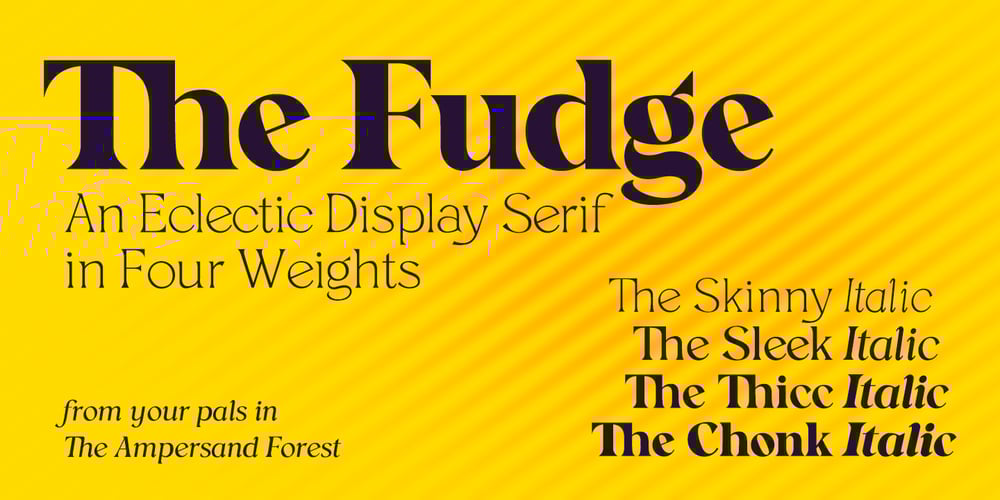
The Fudge Font Family was designed by DC Scarpelli and published by The Ampersand Forest. The Fudge contains 7 styles and family package options. The Fudge takes his inspiration from a proud tradition of big display serif type. He’s an eclectic fellow — he borrows style elements from early 20th century humanism, from the Scotch Roman tradition, and from contemporary trends. He ranges from zero contrast in his Skinny form to voluptuously high contrast in his Chonk persona, which makes him fantastic for expressiveness and massive contrast in headlines and subheads, giving your designs a dynamic voice and a great range of color. The Fudge is designed to be equal parts friendly and elegant—he’d look a treat on a theatre poster or on a package of caramels, on a book cover or on a website, in bold color or in stark black and white. As long as the subject matter is delicious—whether it’s food or literature or music or… anything that requires a strong, assertive, approachable choice!